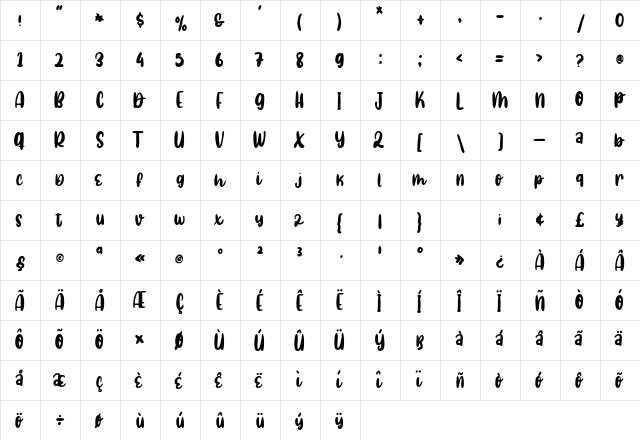
Agile Sloth Regular
Design Context for Agile Sloth Typeface
Agile Sloth is a composed and adaptable typeface that performs quietly and consistently across a wide range of design contexts.